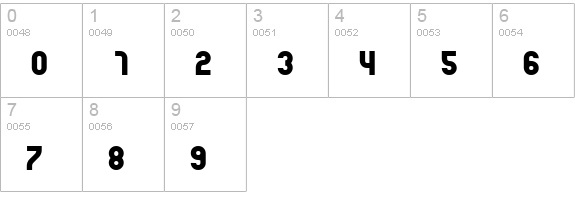
Mass Black Font Details
Mass Black is a maximum-weight, dramatic variant in the Mass typeface family \xE2\x80\x94 well suited to maximum-impact headlines, posters, and packaging.
Introducing Mass Black, a bold and powerful font that exudes elegance and sophistication. This captivating typeface commands attention with its sleek lines and commanding presence. With its strong, heavy strokes, Mass Black makes a bold statement in any design project. This versatile font is perfect for creating eye-catching headlines, logos, and branding materials. Its strong and impactful letterforms effortlessly convey a sense of power and authority. Whether it's for a magazine spread, website design, or advertising campaign, Mass Black is sure to make a lasting impression. But what makes Mass Black even more enticing is that it is available for free download at FontsMarket.com. That's right, you can now enhance your creative projects without breaking the bank. FontsMarket.com offers a vast collection of high-quality fonts, and Mass Black is just one of the many gems waiting to be discovered. So why wait? Take your design game to the next level with Mass Black. Its striking appearance and free availability make it a must-have for any designer or creative enthusiast. Download Mass Black today and experience the power of this remarkable font.